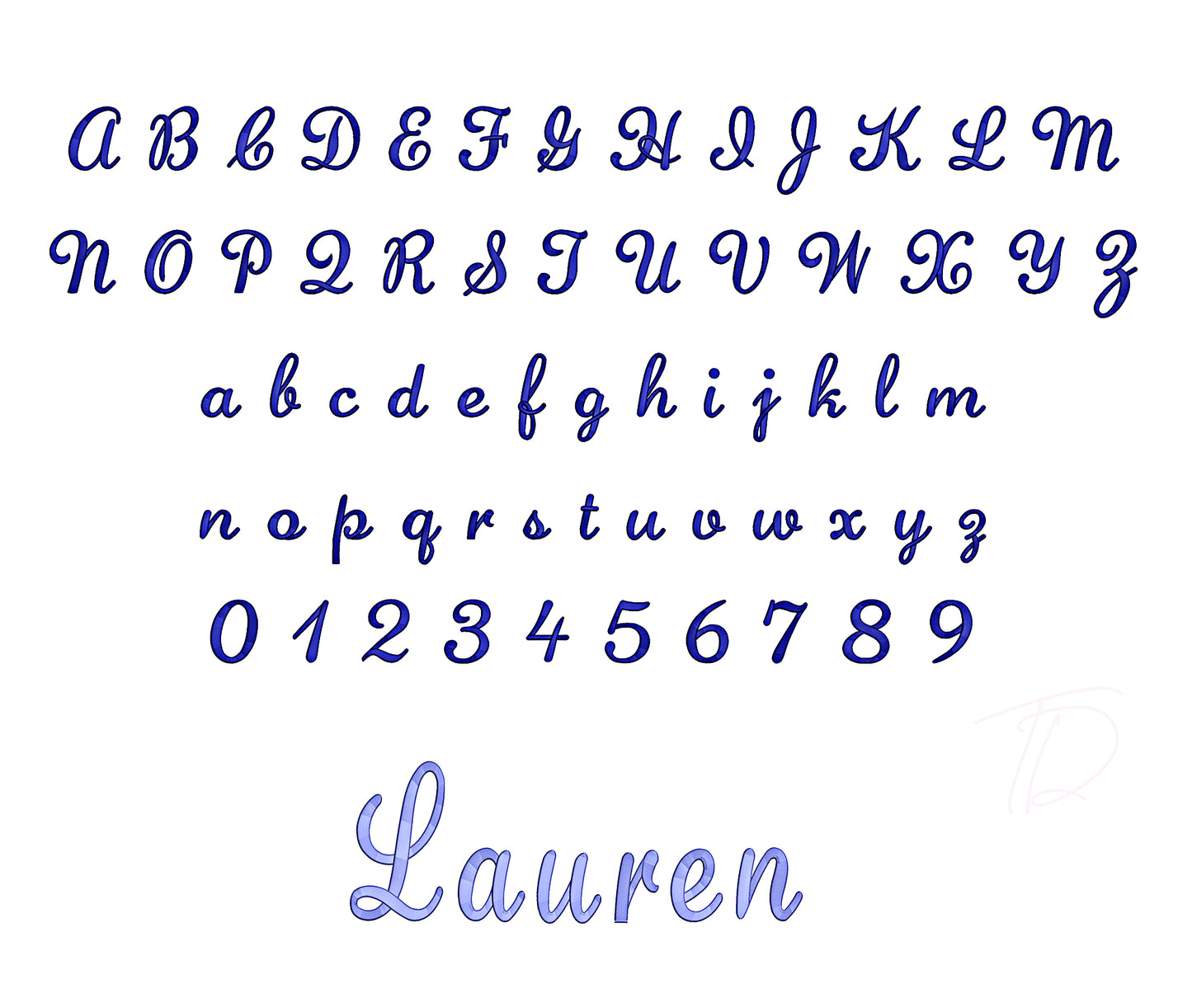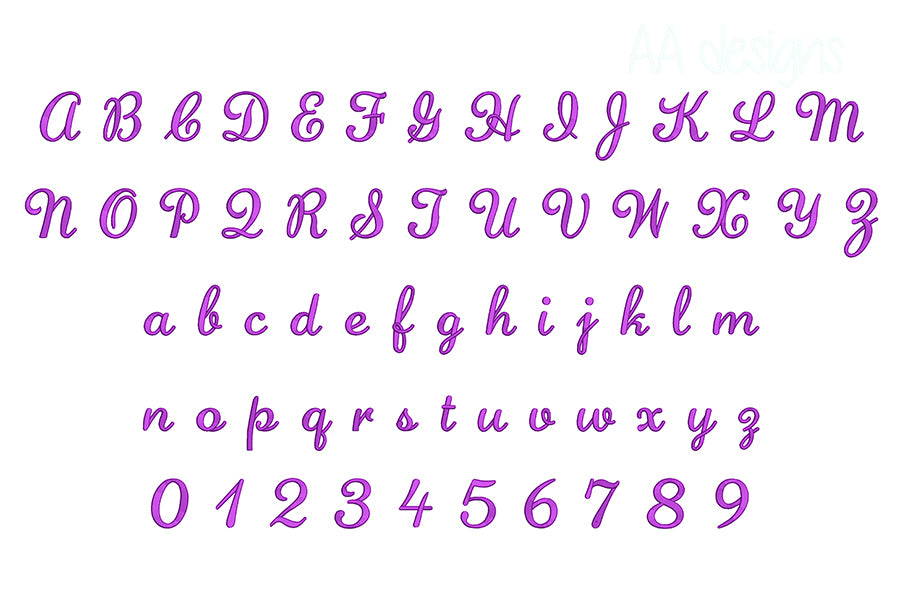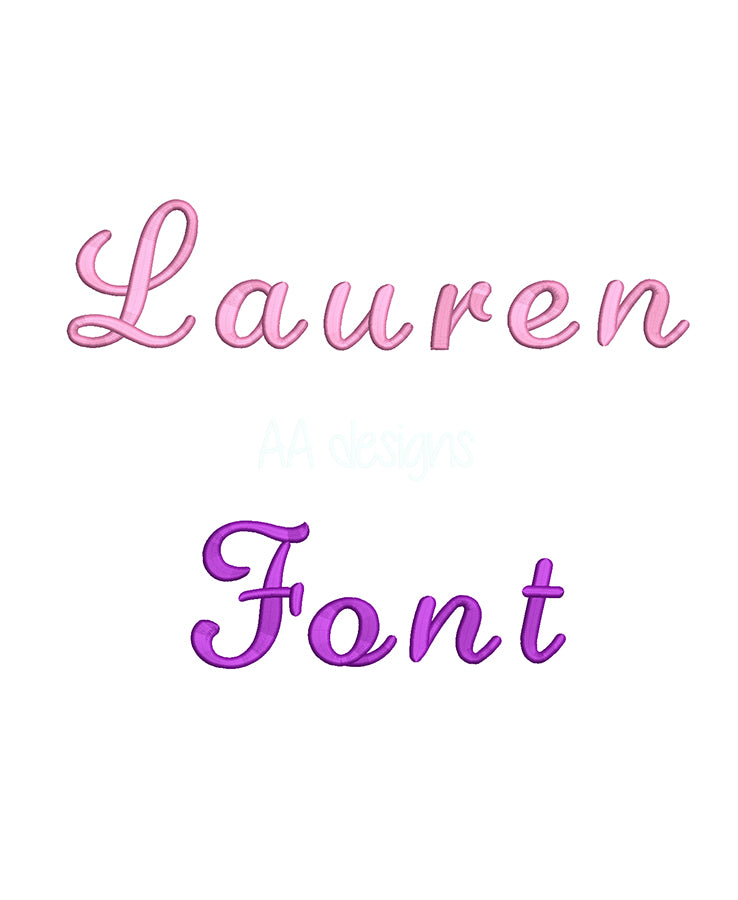
About This Font
The Lauren 3D Puff embroidery font is a modern, elegant alphabet designed specifically for the raised 3D foam embroidery technique. With clean lines and bold dimension, Lauren delivers a premium look that flat-fill fonts simply cannot replicate. The raised foam effect creates a striking, tactile finish that stands out on hats, hoodies, bags, and apparel — making every piece look professionally crafted.